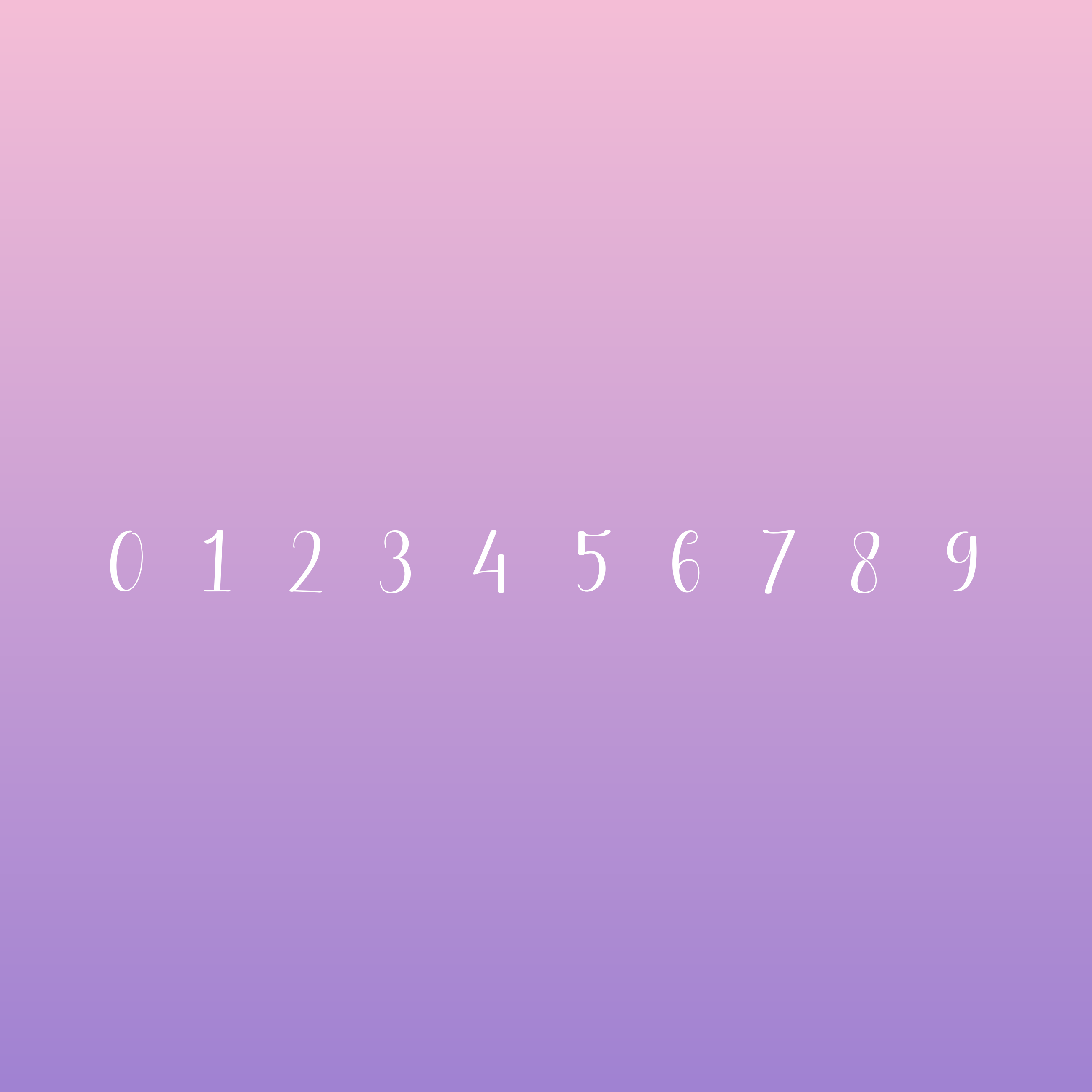
Aurelya Elegant Script Font | Cricut Font | Handwritten Logo & Branding Font
Aurelya is a romantic and elegant script font with smooth flowing strokes and a soft, feminine style. Perfect for Cricut projects, branding, invitations, apparel, and creative designs.
💗 Graceful, modern lettering
💗 Easy to read and cut